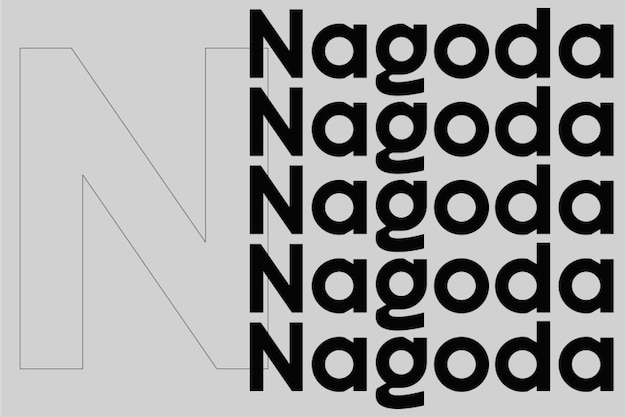
Nagoda Font
A font that effortlessly embodies the trifecta of cool, modern, and simplicity. Its letters are a harmonious blend of sleek lines and contemporary design, creating an aesthetic that's undeniably chic. With each character, you're immersed in a world of effortless style. 'Nagoda' adds an air of understated elegance to your text, where each letter is a brushstroke of modern coolness and refined simplicity, crafting a typographic masterpiece that's both captivating and refreshingly straightforward.